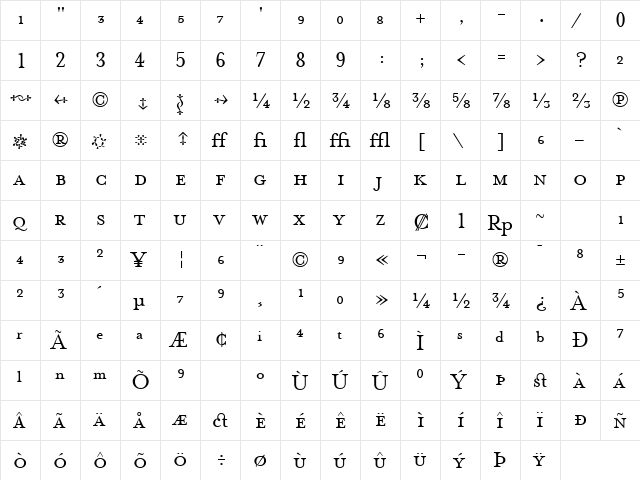
MrsEavesFractions Regular
Design Context for MrsEavesFractions Typeface
MrsEavesFractions takes a measured approach to typography — its balanced proportions and neutral character make it a reliable workhorse for both digital and print work.